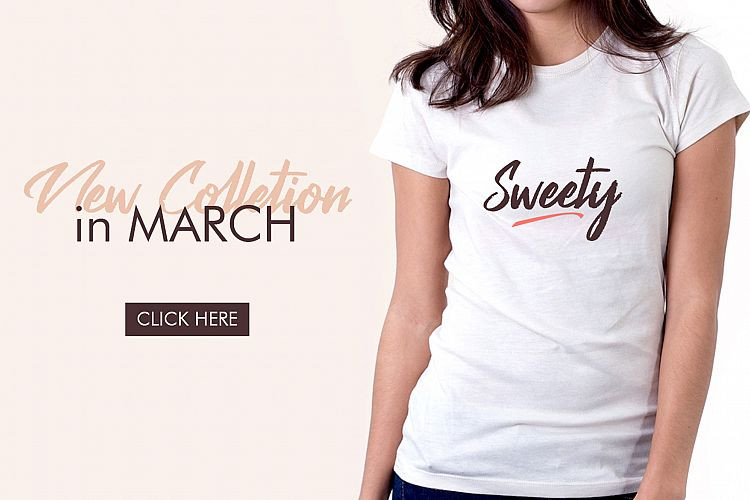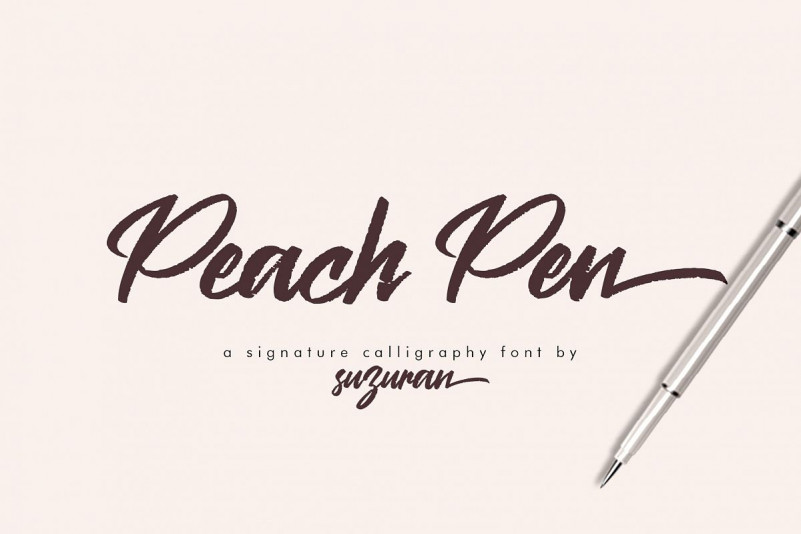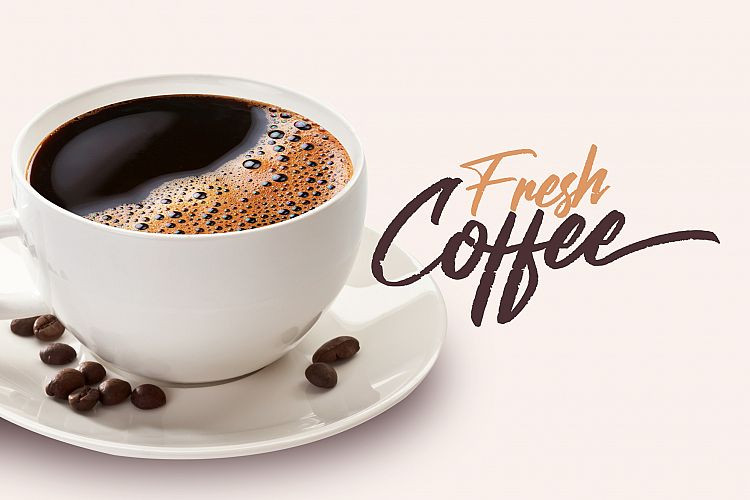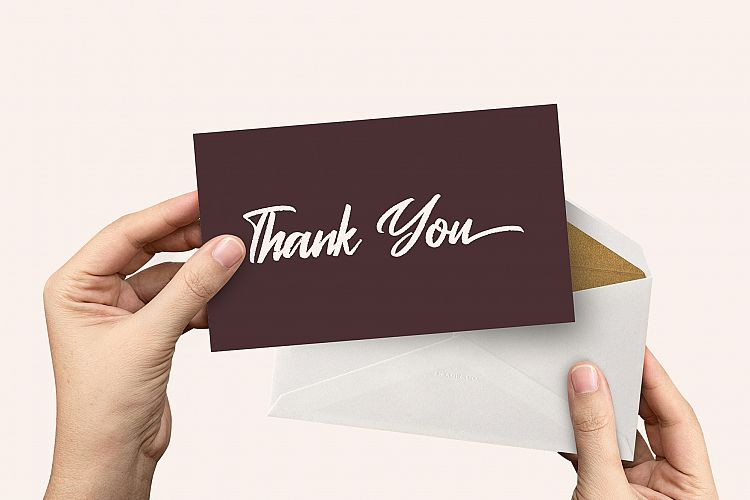
Peach Pen Script Font
Introducing the Peach Pen script, a font that is very fresh and unique style handmade + bonus font, Night in Kansas & Free Pen Script for your project. Peach Pen script is perfectly suited to logo, stationery, poster, apparel, branding, wedding invitation, card, tagline, layout design, and much more !!.